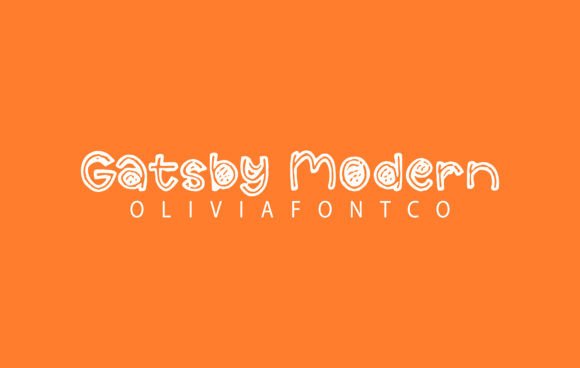
Gatsby Modern Font: Elevate Your Creative Projects with a Romantic Touch
In the realm of typography, a font can make or break the visual appeal of a creative project. For those seeking a unique and captivating handwritten font, Gatsby Modern Font is an exceptional choice. This authentic handwritten font boasts a romantic touch, expertly designed to become a true favorite among designers and creative enthusiasts alike. With its excellent legibility and versatility, Gatsby Modern Font has the potential to elevate your creative ideas to new heights.
The Characteristics of Gatsby Modern Font
Gatsby Modern Font is distinguished by its authentic handwritten style, infused with a romantic essence. This font is not just aesthetically pleasing but also highly functional, making it suitable for a wide range of applications. Whether you’re working on magazine headlines, social media content, branding materials, wedding invitations, or cards, Gatsby Modern Font is an excellent choice.
Legibility and Versatility
One of the standout features of Gatsby Modern Font is its exceptional legibility. This font is designed to be clear and readable, whether used as a title or body text. Its versatility is another significant advantage, allowing it to adapt seamlessly to various design contexts. From elegant wedding invitations to engaging social media posts, Gatsby Modern Font can handle it all with style and sophistication.
Design Applications of Gatsby Modern Font
The potential applications of Gatsby Modern Font are vast and varied. Here are a few examples of how this versatile font can be used:
- Magazine Headlines: Create eye-catching headlines that capture the essence of your story with Gatsby Modern Font.
- Social Media: Elevate your social media content with a touch of elegance and sophistication.
- Branding: Develop a strong brand identity with a font that exudes professionalism and style.
- Wedding Invitations: Add a romantic touch to your wedding invitations and make them truly unforgettable.
- Cards: Whether it’s a birthday, anniversary, or holiday card, Gatsby Modern Font can help you create a memorable and heartfelt message.
The Benefits of Using Gatsby Modern Font
Choosing Gatsby Modern Font for your creative projects comes with numerous benefits:
- Unique Style: Stand out from the crowd with a font that offers a fresh and distinctive look.
- Emotional Connection: The romantic touch of this font can help create an emotional connection with your audience.
- Professionalism: Despite its handwritten nature, Gatsby Modern Font exudes professionalism and can elevate the perceived value of your project.
- Easy to Read: The legibility of this font ensures that your message is communicated clearly and effectively.
How to Use Gatsby Modern Font Effectively
To maximize the impact of Gatsby Modern Font, consider the following tips:
- Pair with Complementary Fonts: Use Gatsby Modern Font in combination with other fonts to create visual interest and hierarchy.
- Adjust Font Sizes: Experiment with different font sizes to emphasize certain elements and create a more dynamic layout.
- Play with Colors: While the font itself is a focal point, don’t forget to experiment with colors to enhance the overall aesthetic.
Gatsby Modern Font is a remarkable addition to any designer’s toolkit. Its unique blend of authenticity, romance, and legibility makes it an ideal choice for a wide range of creative projects. Whether you’re looking to make a statement with a magazine headline, add a touch of elegance to your branding, or create memorable social media content, Gatsby Modern Font is up to the task. By incorporating this versatile and stylish font into your designs, you’ll be well on your way to creating visually stunning and effective projects that capture the hearts of your audience.